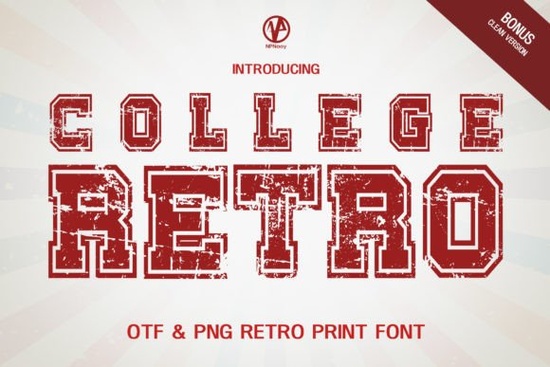
If you're looking for a display font that brings instant vintage energy to posters, t-shirts, or social media graphics College Retro Font fits right in. It’s not overly polished or digital-perfect; instead, it leans into gentle grunge texture and hand-drawn imperfections that feel authentic to 1970s–80s college spirit, campus posters, and indie zines. You don’t need design experience to use it well just pair it with clean sans-serif body text, keep line spacing open, and avoid overloading layouts with too many distressed elements.
When does College Retro Font work best?
This font shines where personality matters more than precision: event flyers for local music nights, merch designs for small-batch apparel brands, Instagram story headers for craft studios, or even DIY wedding signage with a laid-back vibe. Because it’s a display font not intended for paragraphs it works best at larger sizes (36pt and up) and in short phrases like “Game Day,” “Freshman Week,” or “Retro Rewind.”
It’s especially useful if you’re designing for back-to-school season, alumni events, or nostalgia-themed product lines. Unlike script fonts that require careful kerning or ultra-thin fonts that fade on fabric, College Retro Font holds up well on screen-printed tees, enamel pins, and vinyl decals even at medium sizes.
How does it compare to other retro display fonts?
Not all vintage-style fonts age the same way. Some lean too hard into cartoonish exaggeration; others feel sterile or digitally reconstructed. College Retro Font strikes a balance: its subtle distressing looks worn-in but not muddy, and its letterforms have consistent weight and rhythm so your headlines stay legible, not chaotic.
Practical tips for using it well
- Don’t stretch or skew the letters it breaks the natural rhythm and makes the distressing look artificial.
- Use it sparingly: one headline per layout is enough. Let the font breathe with generous margins and simple background colors.
- Test print or mockup early especially on dark fabrics or textured paper to confirm readability and contrast.
- Pair it with neutral sans-serifs like Montserrat, Inter, or Open Sans for body copy. Avoid competing decorative fonts underneath.
Who’s using fonts like this right now?
Small businesses selling handmade tote bags, sticker packs, and enamel pins are using retro display fonts to stand out in crowded Etsy and Instagram feeds. Print-on-demand sellers report stronger engagement on designs featuring nostalgic typography especially when tied to real-life moments like graduation, homecoming, or campus traditions. Crafters building digital scrapbook kits or printable planners also layer College Retro Font into title pages and section headers for visual variety without sacrificing cohesion.
Designers working with clients in education, local arts, or community organizing find it helpful for creating accessible-yet-characterful materials like event posters for library teen programs or volunteer recruitment flyers for neighborhood gardens. The font feels human, approachable, and grounded not corporate or trendy.
Before downloading or licensing College Retro Font, ask yourself: Will this support the message or distract from it? Does it match the tone of the audience I’m speaking to? If you’re aiming for warmth, authenticity, and quiet confidence not flash or irony this font quietly delivers.
Quick checklist before using it:
- ✅ Used only for headlines, titles, or short phrases (not body text)
- ✅ Paired with a simple, highly readable font for supporting text
- ✅ Tested on your final output format (e.g., printed shirt, SVG cut file, social post)
- ✅ Kept color contrast high especially on busy or textured backgrounds